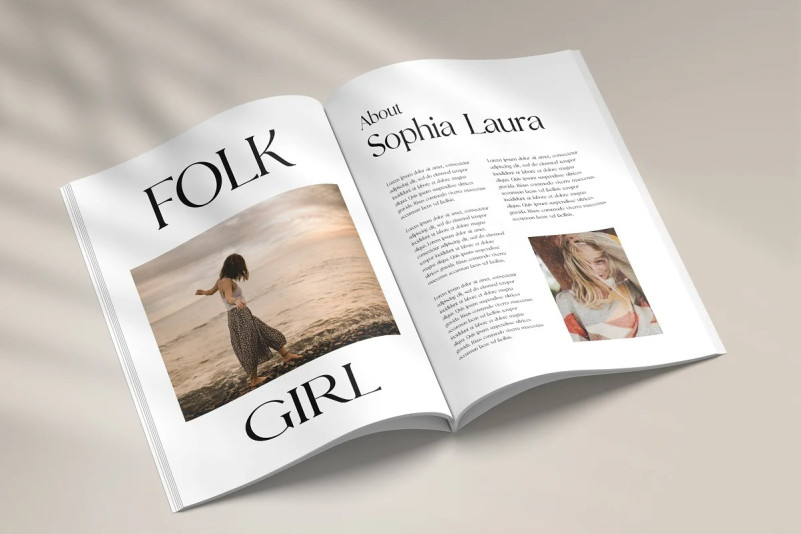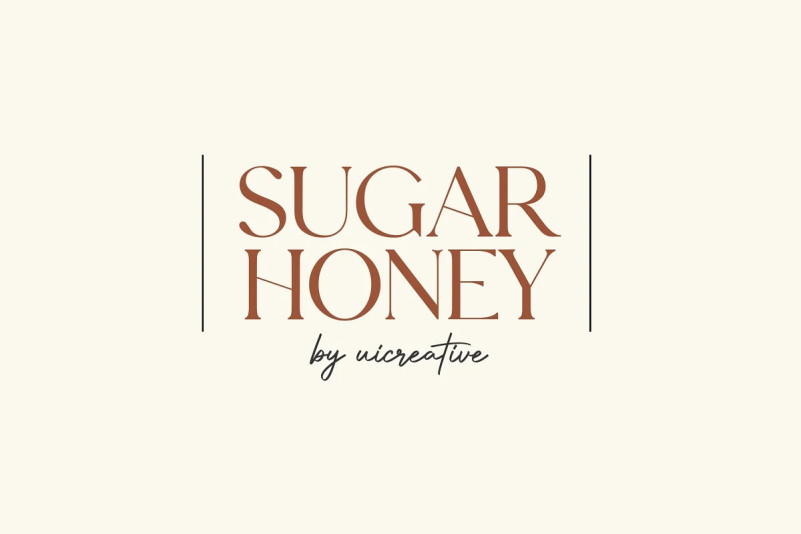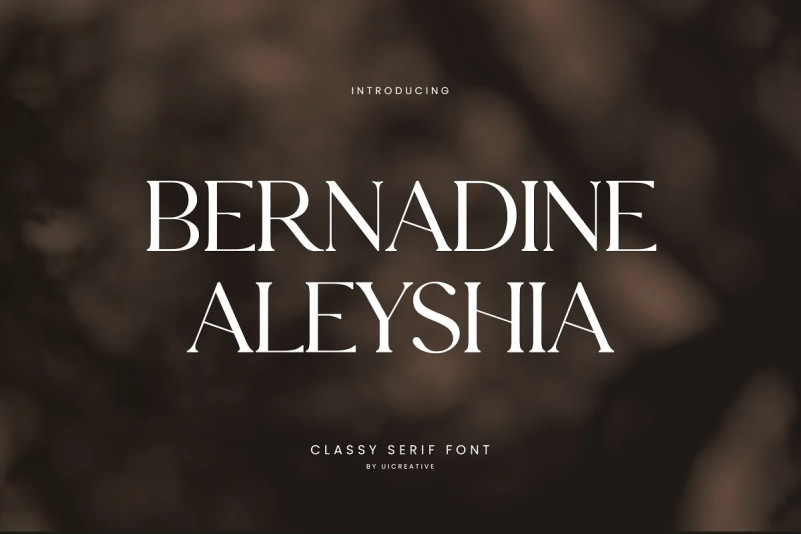
Bernadine Aleyshia Font
Bernadine Aleyshia Font, Classic Serif Font. Modern Serif font that feels beautiful classy, elegant, and modern. This font is ideally suited for a wide variety of projects, such as signature, stationery, logo, wedding, typography quotes, magazine or book covers, website headers, clothing, branding, packaging design, and more. Also, fashion-related branding or editorial design displays both masculine and feminine qualities.